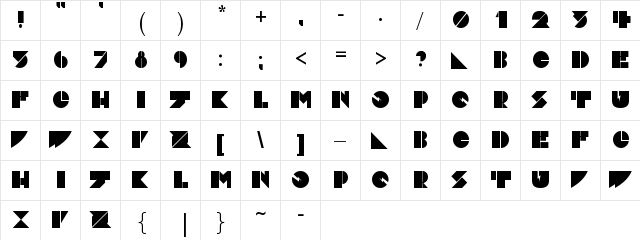
DaddyDontDisco Regular
Design Context for DaddyDontDisco Typeface
DaddyDontDisco is a composed and adaptable typeface that performs quietly and consistently across a wide range of design contexts.